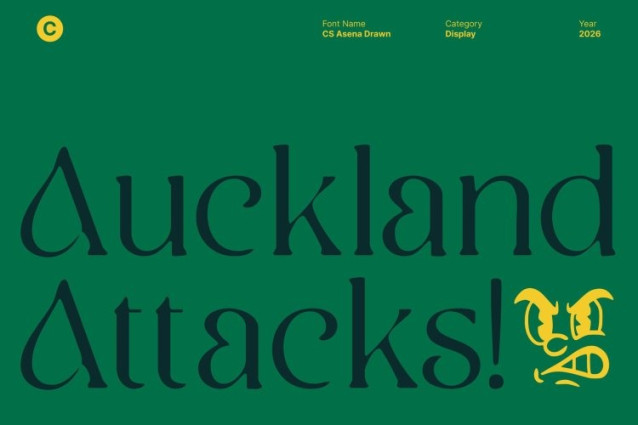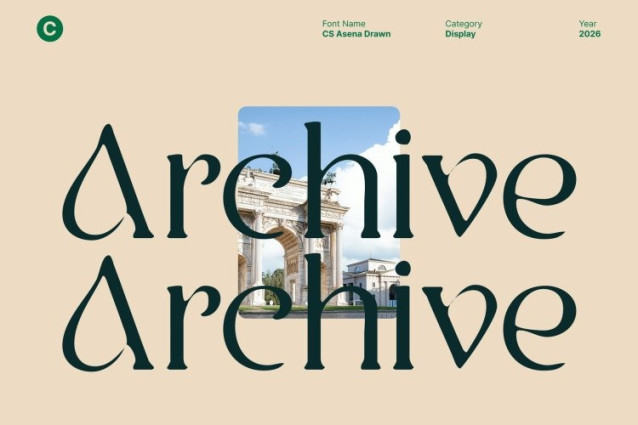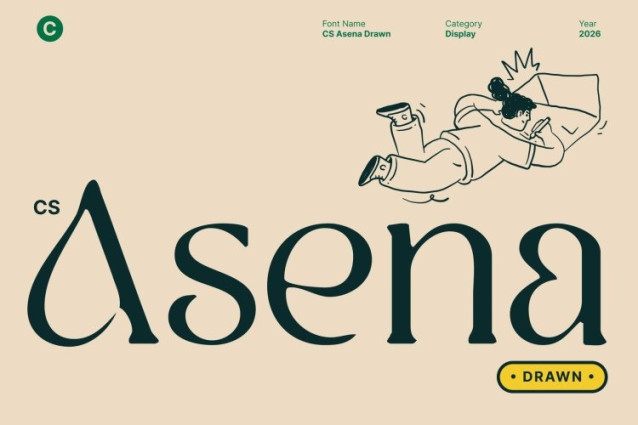
CS Asena Drawn Font
CS Asena Drawn Font This is an elegant serif font designed to deliver a refined, high-end appearance enriched with an artistic drawn touch. Its graceful curves and carefully sculpted letterforms create a luxurious visual tone that feels timeless yet expressive. The drawn effect introduces subtle texture and softness, giving the font a handcrafted quality that adds depth and individuality to refined design projects.
Refined Curves Inspired by Art Nouveau Flow
Inspired by the organic movement of Art Nouveau, features fluid curves and harmonious proportions that echo natural forms and decorative artistry. The hand-drawn texture enhances these flowing shapes, creating gentle imperfections that bring warmth and character. This artistic influence adds visual richness while preserving clarity, balance, and elegance.
Classic Elegance with Modern Sensibility
Blending classic serif tradition with modern sophistication, this font feels both timeless and contemporary. Its elegant serifs provide structure and authority, while the drawn finish softens the overall appearance, making it feel more expressive and human. This balance allows to work beautifully in both display typography and refined text layouts.
Perfect for Editorial, Fashion, and Premium Branding
Designed for high-end applications, this font is ideal for editorial design, fashion visuals, book layouts, packaging, and luxury branding. Its artistic serif structure elevates headlines, body text, and brand identities with a sense of craftsmanship, sophistication, and understated luxury.